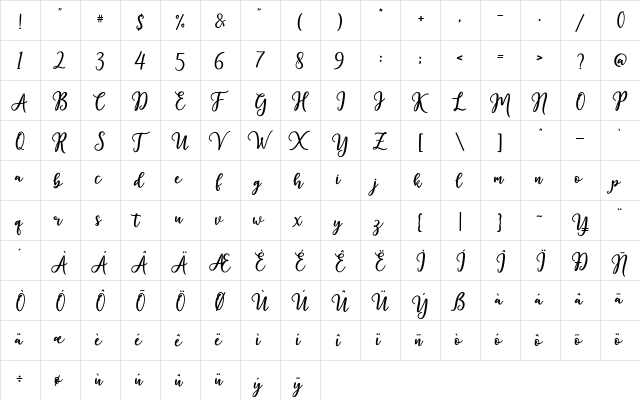
hista demo Script Font Preview
hista demo Script
hista demo Script Font Details
| Style | Script |
| Foundry | Bestfontstudio |
| Designer | Best font studio |
Design Context for hista demo Typeface
hista demo flows with the natural rhythm of handwritten lettering, making it ideal for designs that call for warmth and personal expression.